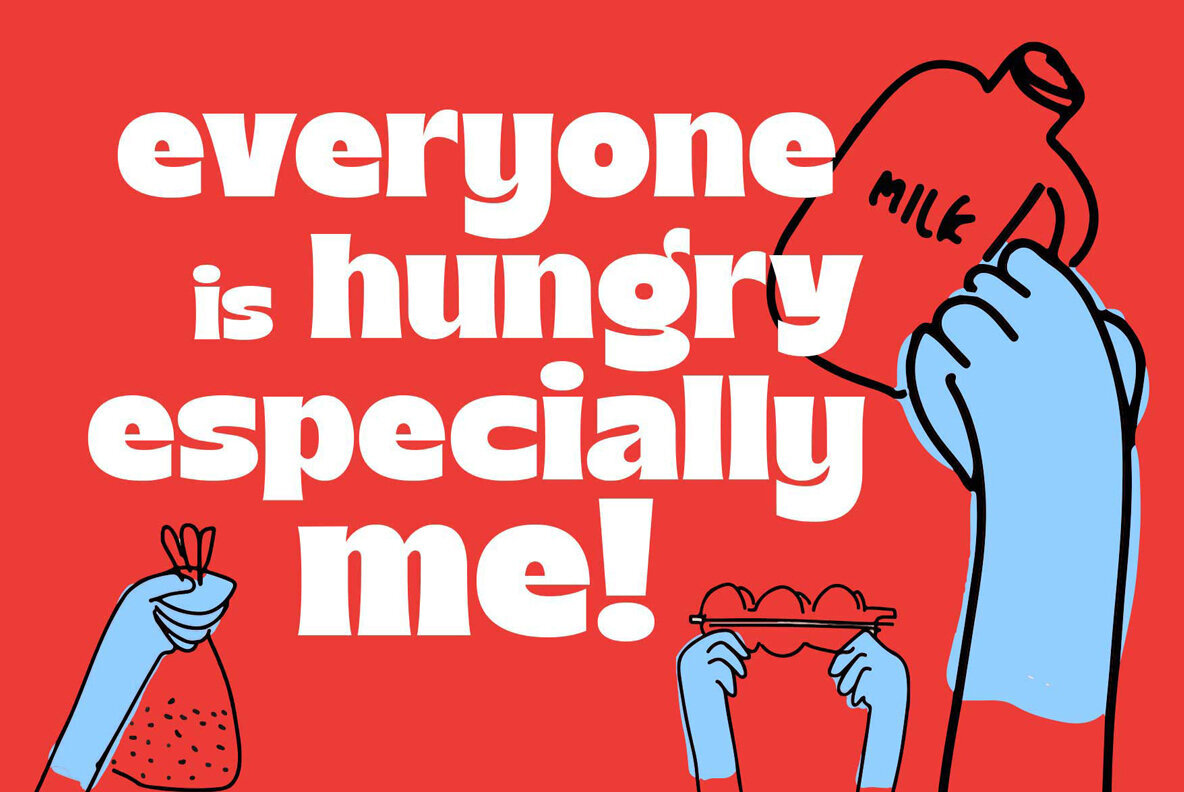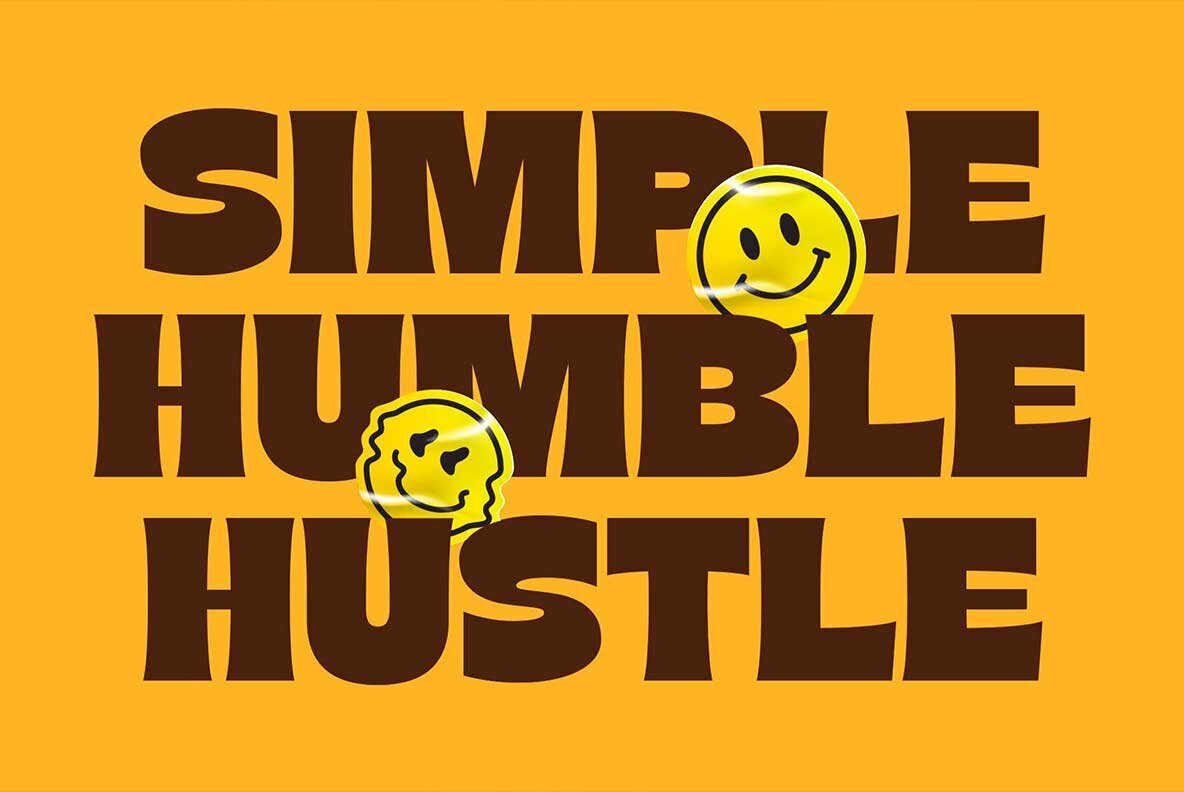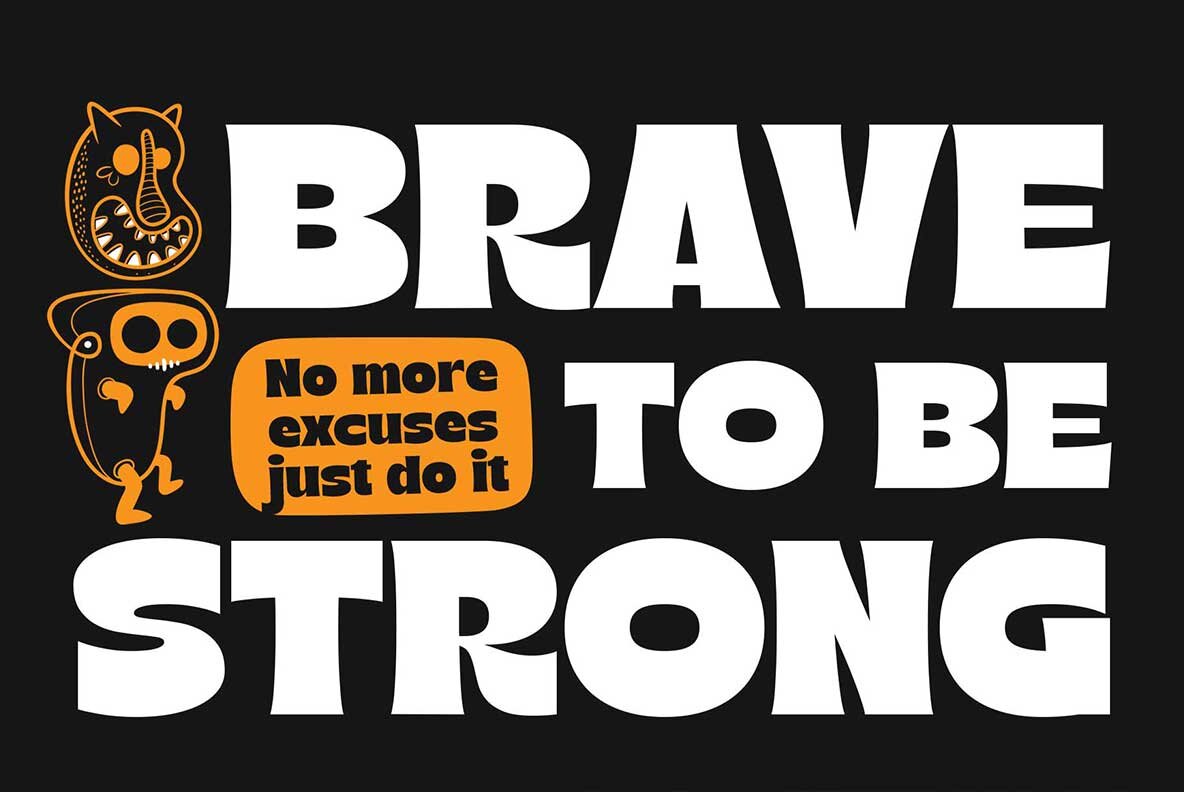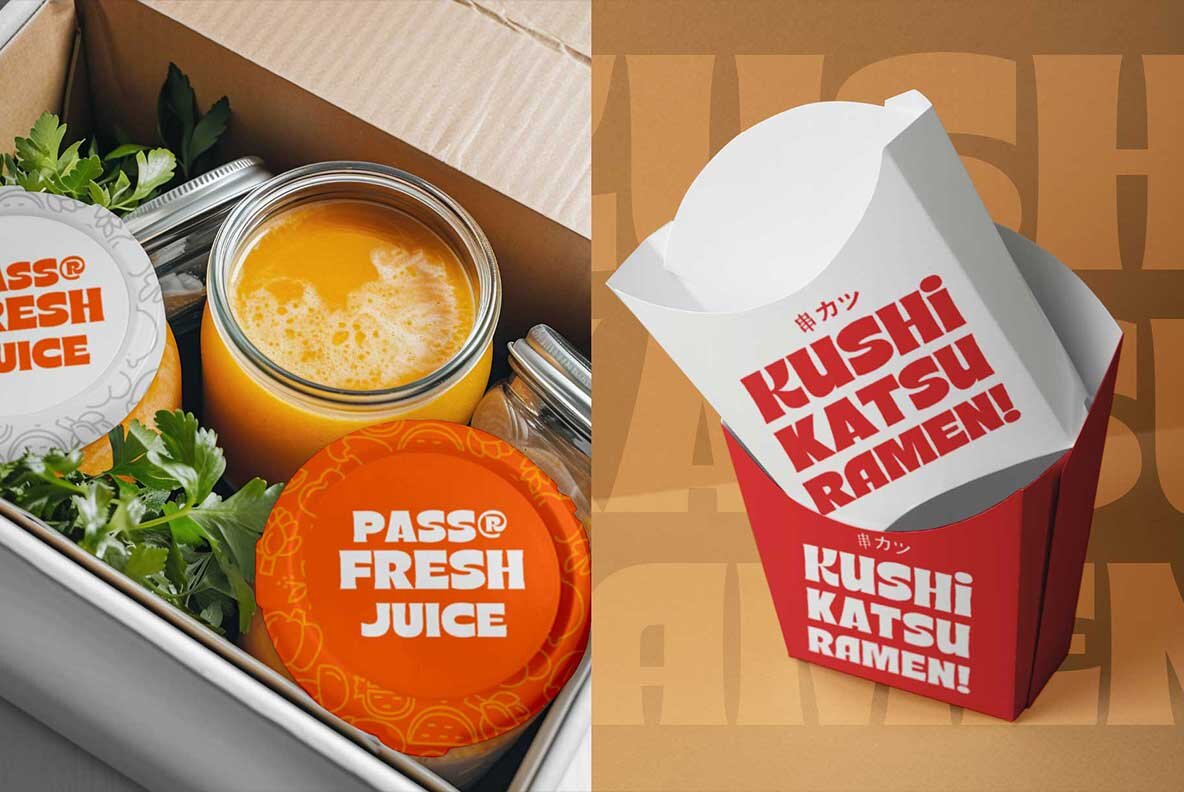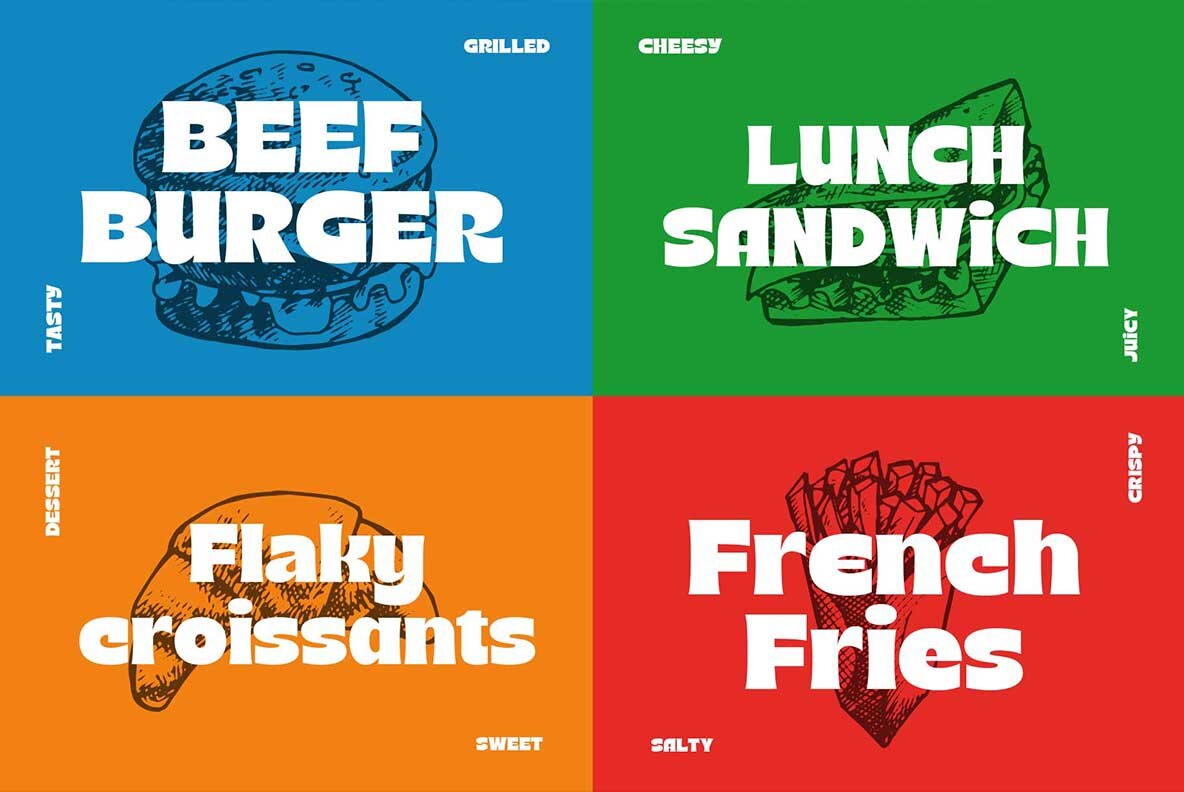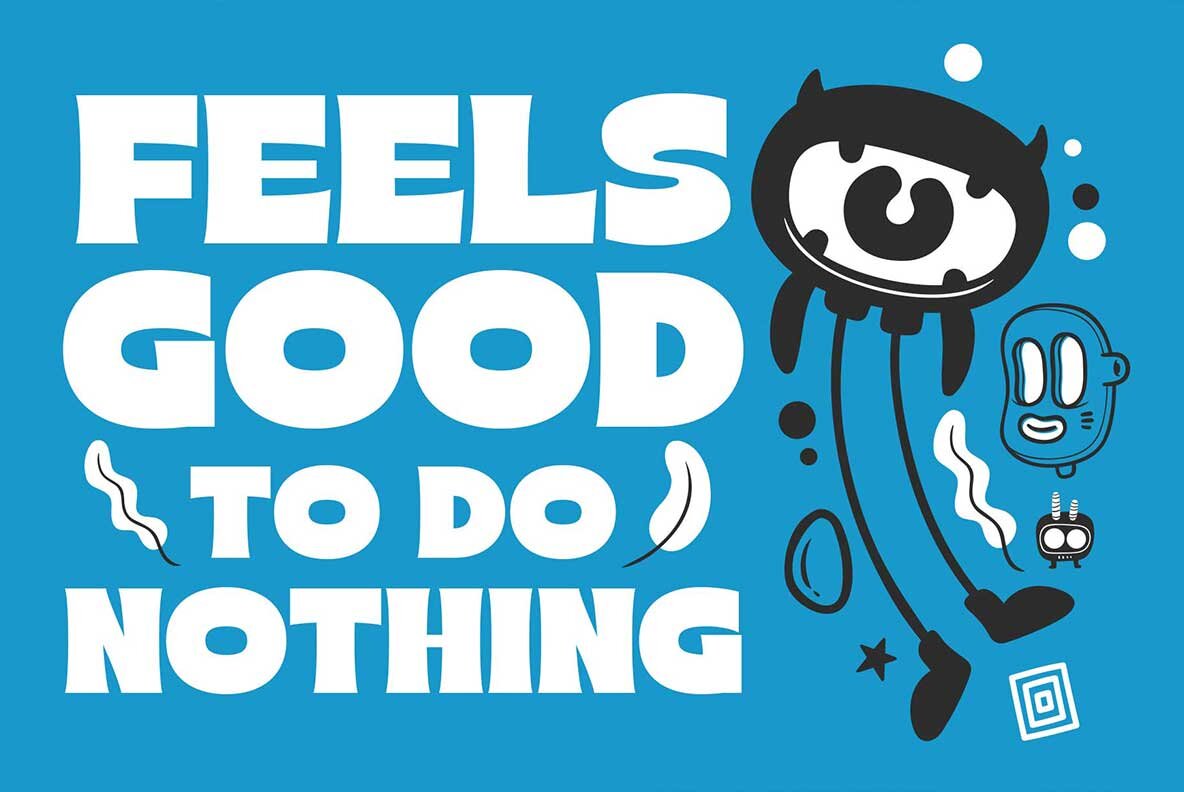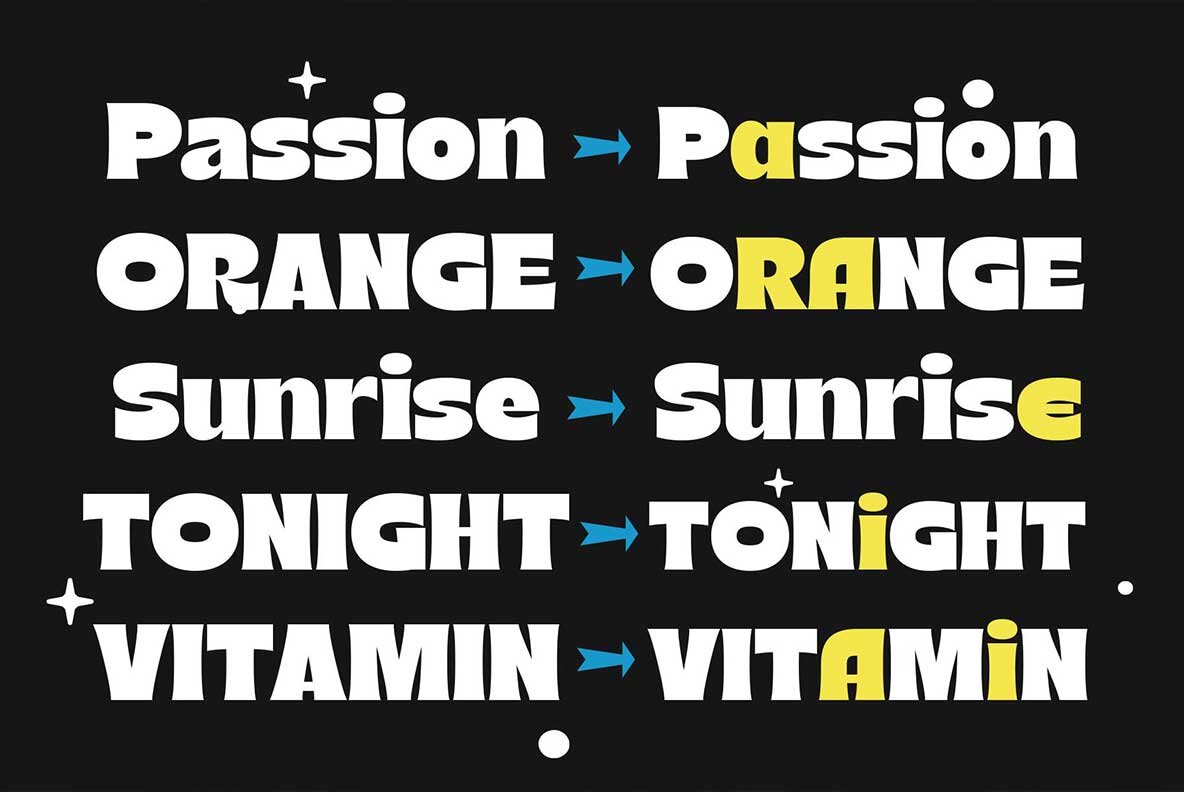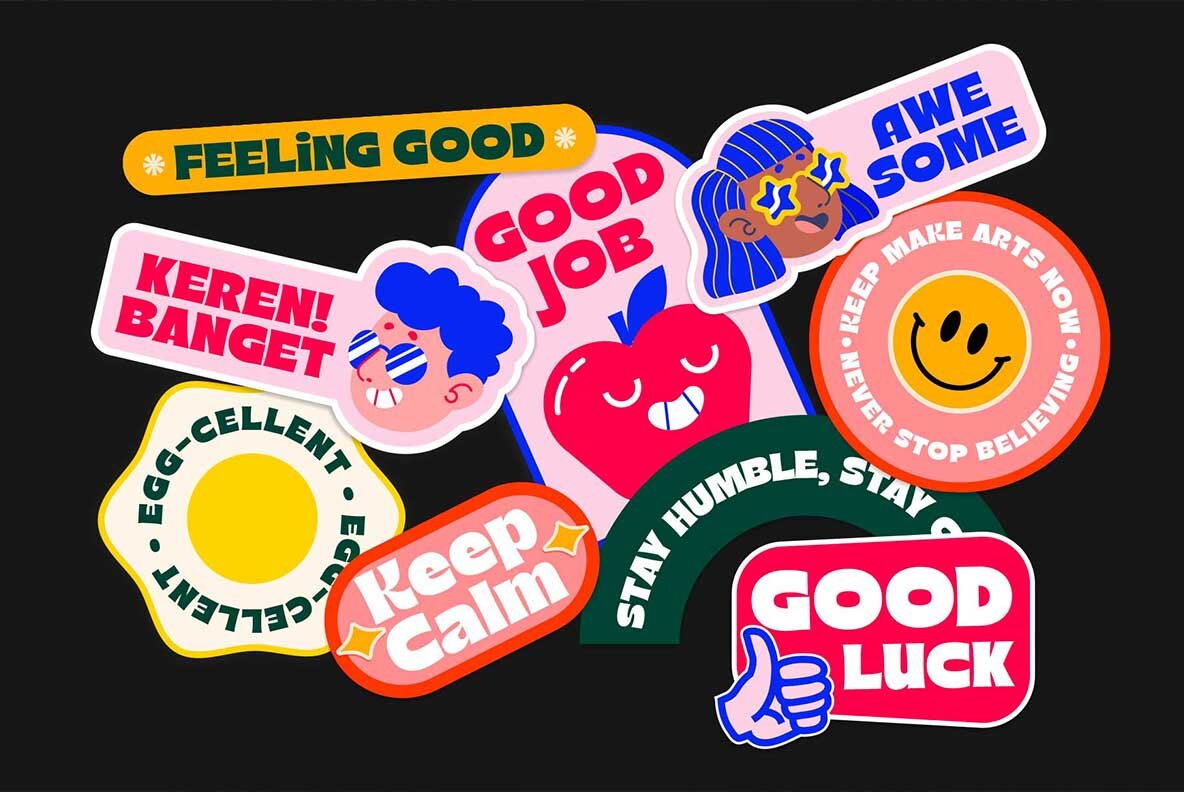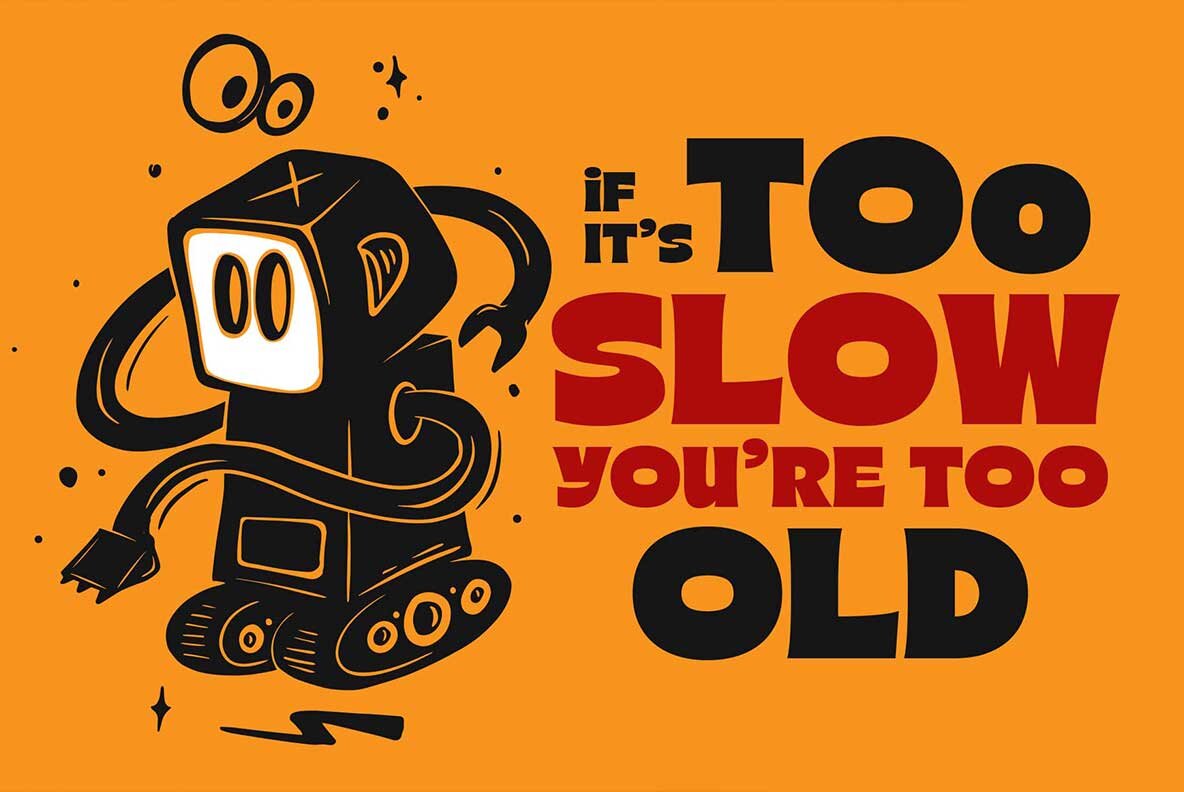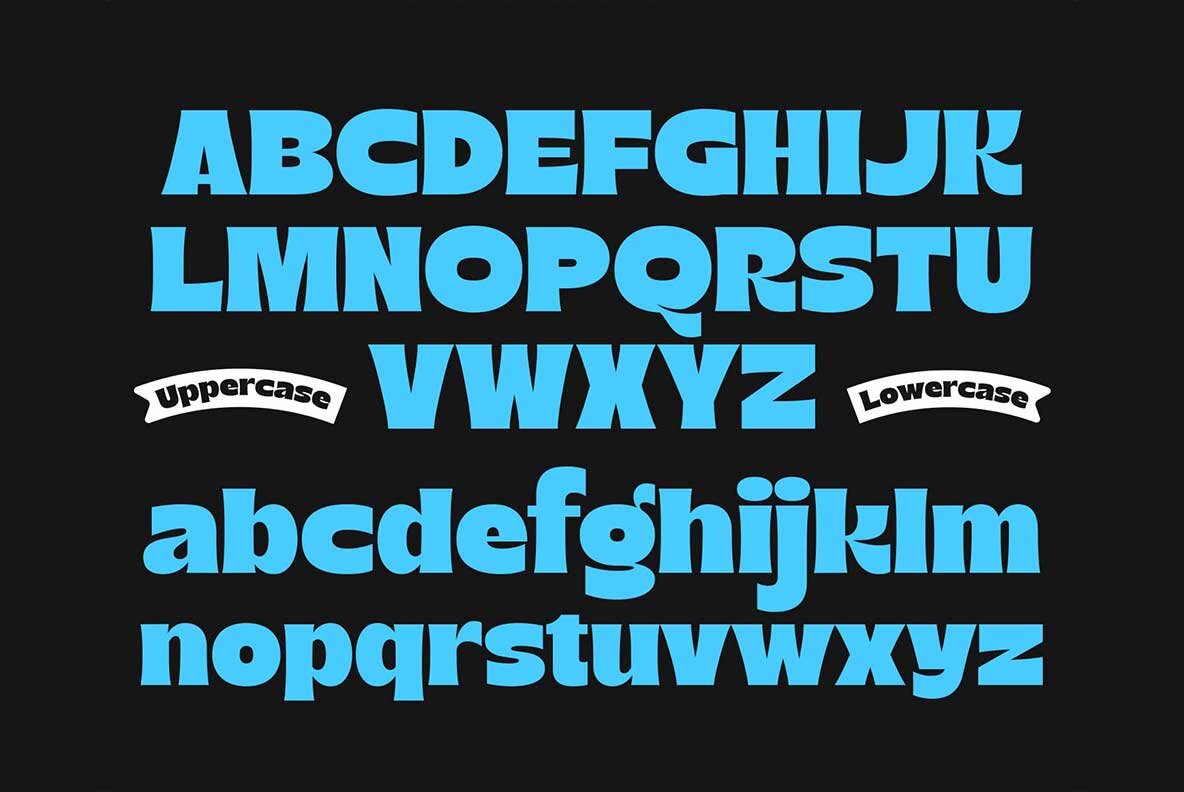
Akina Font
Akina Regular
Akina is a bold serif font that draws inspiration from the vintage-pop art aesthetic. With its thick, playful curves and subtle beak endings, this font infuses a relaxed yet dynamic vibe into your designs, making it a great choice for projects that embrace contrast. Whether you're working on logos, headlines, branding, motion graphics, or packaging, Akina's unique style creates a visual impact that captivates and engages.
In addition to its striking design, Akina comes with a range of creative features that expand its versatility. This includes stylistic alternates that allow for further customization and multilingual support to ensure global applicability. The font includes a complete set of uppercase and lowercase letters, numbers, symbols, and punctuation, offering comprehensive tools for designers aiming to create standout work. Akina is well-suited for those looking to inject energy and warmth into their typography projects.